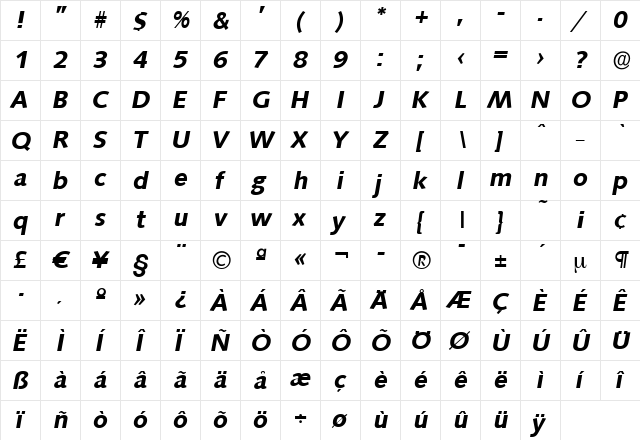
RogerBecker Bold Italic
Design Context for RogerBecker Typeface
RogerBecker takes a measured approach to typography — its balanced proportions and neutral character make it a reliable workhorse for both digital and print work. Its italic angle brings a sense of urgency and motion to the letterforms. The heavy weight commands attention and anchors typographic hierarchies.
Pro Tip: Use RogerBecker for emphasis, pull quotes, and subheadings where its slanted energy can add rhythm to the layout.